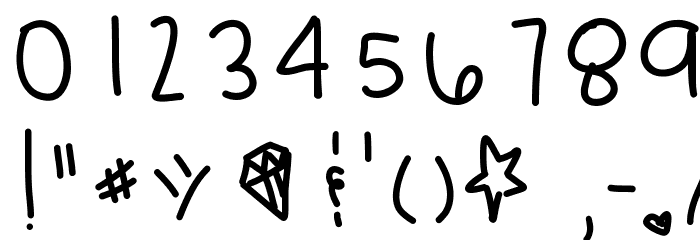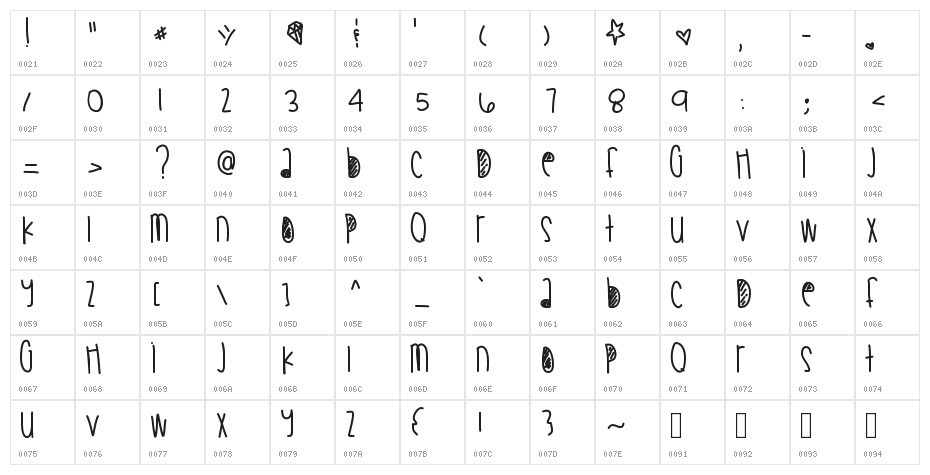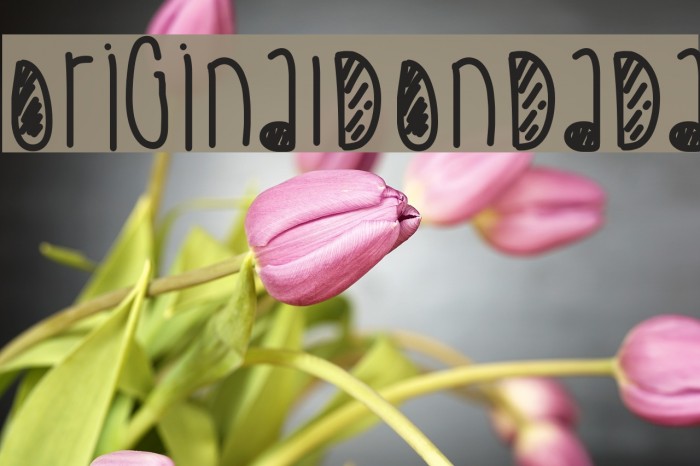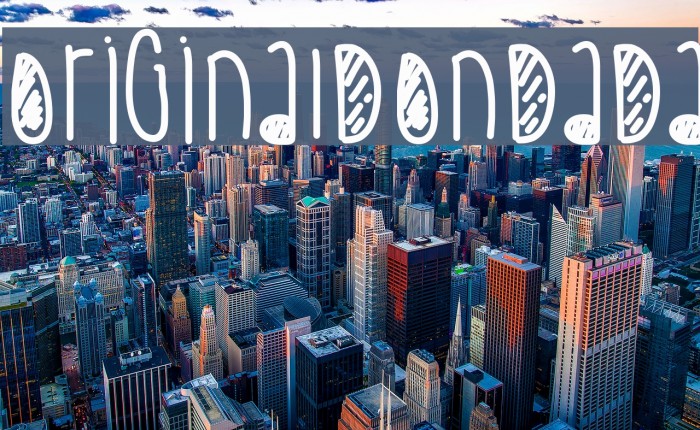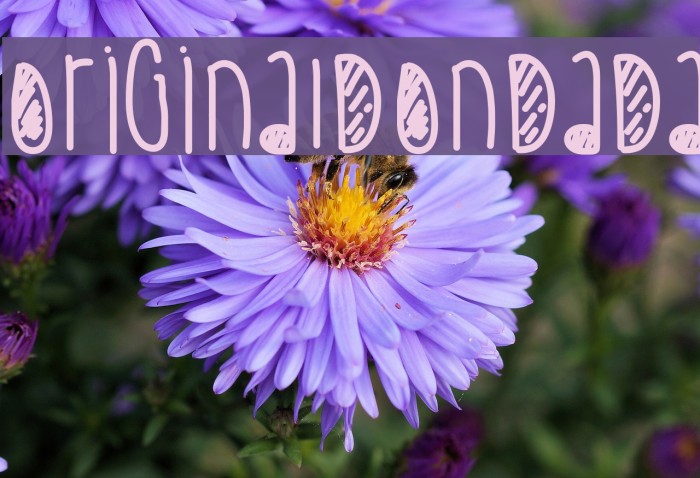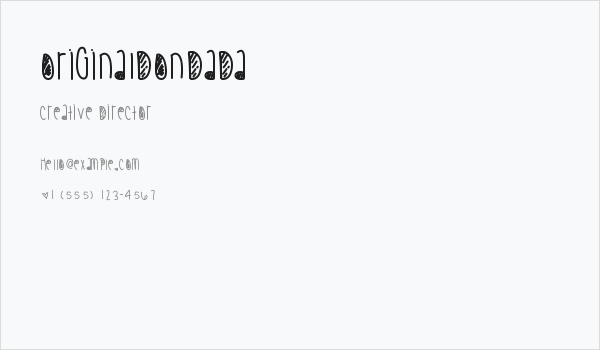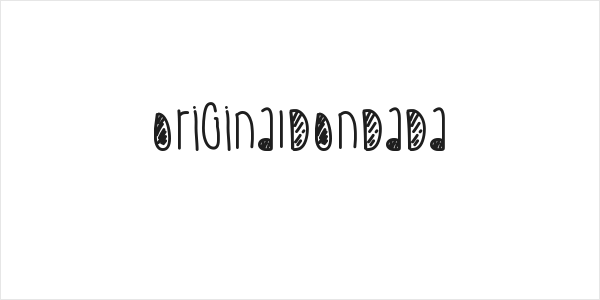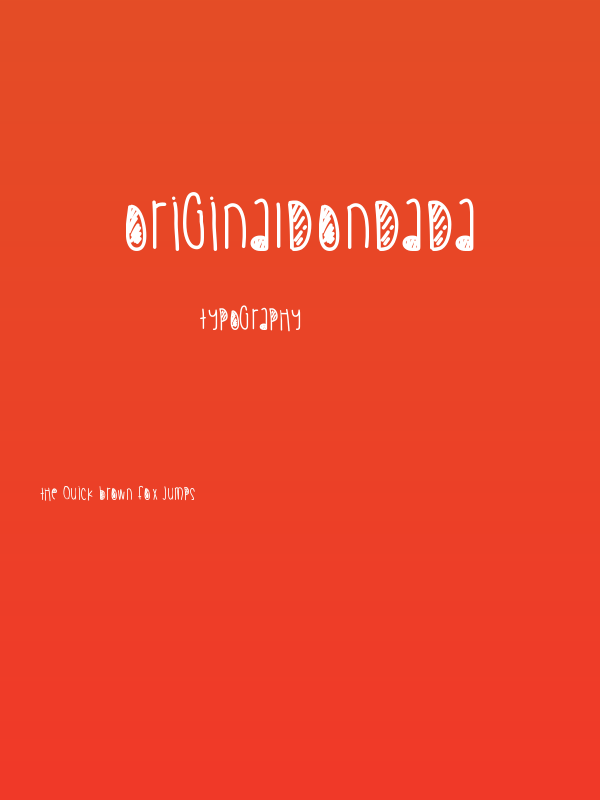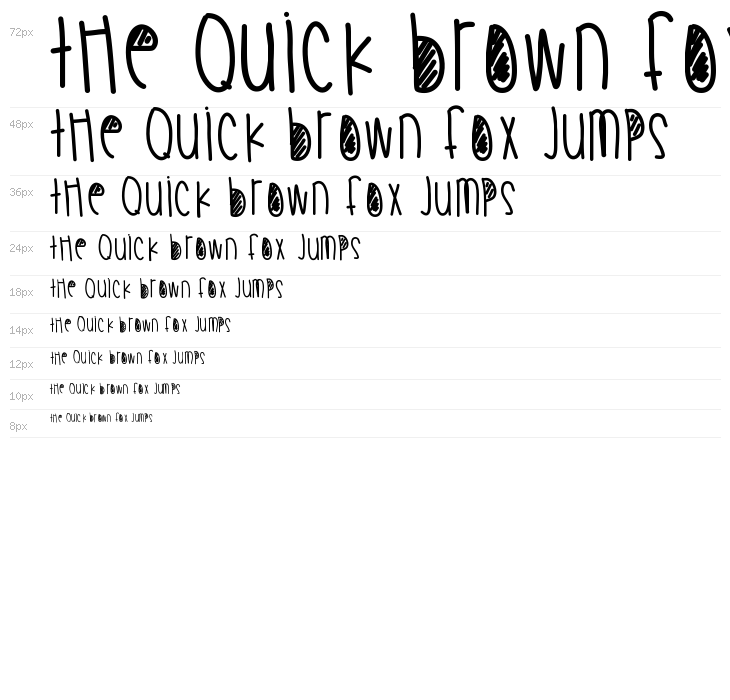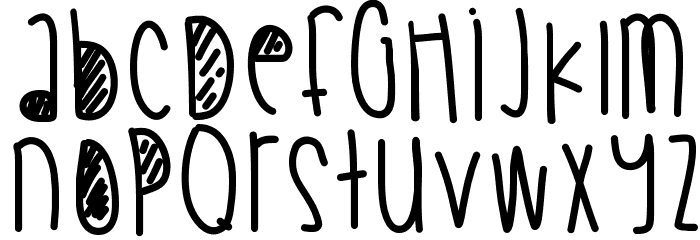
OriginalDonDada Font
OriginalDonDada Description
This playful and whimsical font features a hand-drawn style with a casual, informal appearance. The characters are tall and narrow, with a slightly uneven baseline that adds to its charm. The strokes are bold and consistent, giving the font a strong presence. The uppercase and lowercase letters maintain a cohesive look, while the numbers and special characters complement the overall design. The font's unique personality makes it suitable for creative projects that require a fun and engaging aesthetic.
| Proposed Projects | Ideal for children's books, greeting cards, playful branding, and social media graphics. |